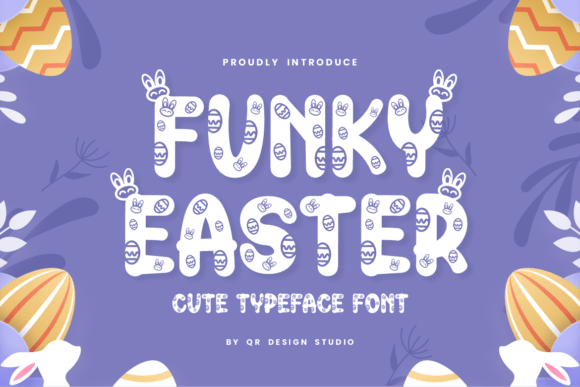
Funky Easter Font: Add a Playful Touch to Your Spring and Easter Decor
Easter is just around the corner, and with it comes the excitement of decorating your home, creating festive crafts, and sending out holiday cards. If you’re looking for a fun and playful way to add some personality to your Easter-themed projects, look no further than the Funky Easter font. In this article, we’ll explore the features of this adorable font and show you how to incorporate it into your Spring and Easter celebrations.
What is Funky Easter Font?
Funky Easter is a cute and festive decorative font that’s perfect for adding a touch of whimsy to your Easter-themed projects. This font is designed to resemble handwritten text, with bold lines, irregular shapes, and a dash of playfulness. Its unique design makes it an excellent choice for creating eye-catching titles, headings, and decorations for your Easter cards, banners, and other craft projects.
Key Features of Funky Easter Font
- Unique and playful design: Funky Easter font boasts a distinctive and charming design that’s sure to capture the spirit of Easter.
- Handwritten style: The font’s handwritten style gives it a personal and informal feel, making it perfect for crafting Easter cards, invitations, and other personal projects.
- Bold and irregular shapes: The font’s bold lines and irregular shapes add a touch of playfulness and fun to your Easter-themed projects.
- Easily customizable: Funky Easter font can be easily customized to fit your project’s needs, from changing the color and size to adding effects and textures.
How to Use Funky Easter Font in Your Easter Projects
Now that we’ve explored the features of Funky Easter font, let’s dive into some creative ways to use it in your Easter projects. From DIY decorations to digital crafts, this font is sure to add a playful touch to your holiday celebrations.
10 Creative Project Ideas Using Funky Easter Font
- Easter cards and invitations: Use Funky Easter font to create personalized and festive Easter cards and invitations for your loved ones.
- DIY Easter banners: Design a colorful Easter banner using Funky Easter font and hang it in your home or office to add a touch of holiday cheer.
- Easter-themed crafts: Incorporate Funky Easter font into your Easter-themed crafts, such as decorating Easter eggs, creating Easter wreaths, or making Easter garlands.
- Spring-themed party decorations: Use Funky Easter font to create festive party decorations, such as banners, signs, and centerpieces, for your Spring-themed party.
- Digital Easter graphics: Create digital Easter graphics, such as social media posts, blog graphics, and email headers, using Funky Easter font.
- Easter gift tags: Design personalized Easter gift tags using Funky Easter font and add a touch of whimsy to your holiday gifts.
- Easter-themed party favors: Create Easter-themed party favors, such as customized candies, cookies, or treats, using Funky Easter font.
- Spring-themed wall art: Use Funky Easter font to create Spring-themed wall art, such as quotes, poems, or inspirational messages.
- Easter story time: Create a festive Easter story time with Funky Easter font by designing a custom storybook or creating Easter-themed bookmarks.
- Easter photo booth props: Design Easter-themed photo booth props, such as hats, glasses, and signs, using Funky Easter font.
Tips and Tricks for Using Funky Easter Font
To get the most out of Funky Easter font, here are some tips and tricks to keep in mind:
5 Tips for Using Funky Easter Font
- Experiment with colors: Funky Easter font looks great in bold, bright colors. Experiment with different color combinations to find the perfect match for your Easter project.
- Mix and match with other fonts: Combine Funky Easter font with other fonts to create a unique and visually appealing design.
- Add textures and effects: Add textures and effects to Funky Easter font to give it a more dimensional and interesting look.
- Keep it simple: Don’t overcomplicate your design. Keep your Easter project simple and focused, and let Funky Easter font be the star of the show.
- Have fun: Most importantly, have fun with Funky Easter font! Experiment, play around, and enjoy the process of creating something special for Easter.
Funky Easter font is a fun and playful decorative font that’s perfect for adding a touch of whimsy to your Easter-themed projects. With its unique design, bold lines, and irregular shapes, this font is sure to capture the spirit of Easter and make your holiday celebrations even more special. Whether you’re creating DIY decorations, digital crafts, or simply looking for a fun way to add some personality to your Easter cards and invitations, Funky Easter font is an excellent choice. So why not give it a try and see what amazing Easter creations you can come up with?
Get Ready to Hop into Easter with Funky Easter Font!